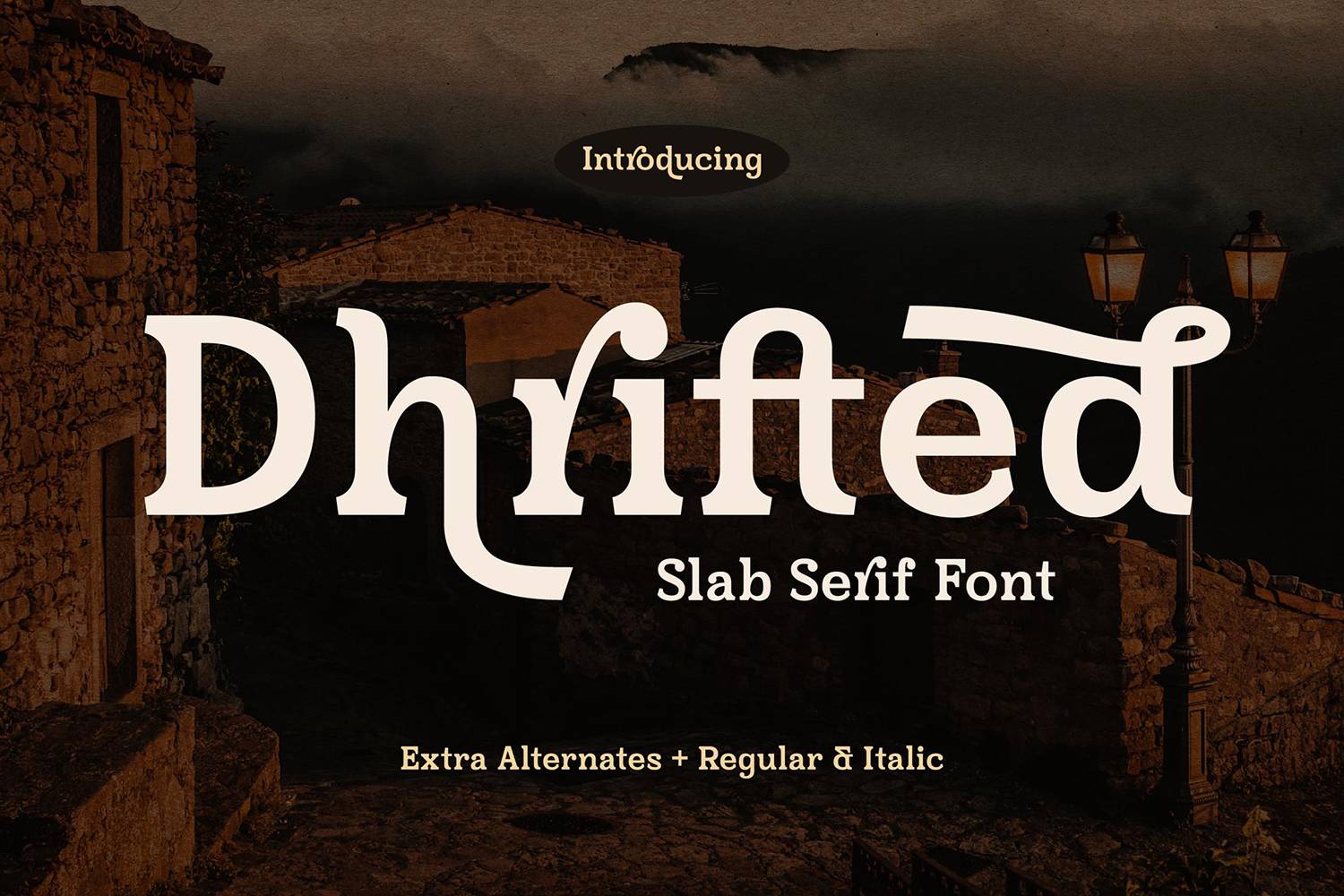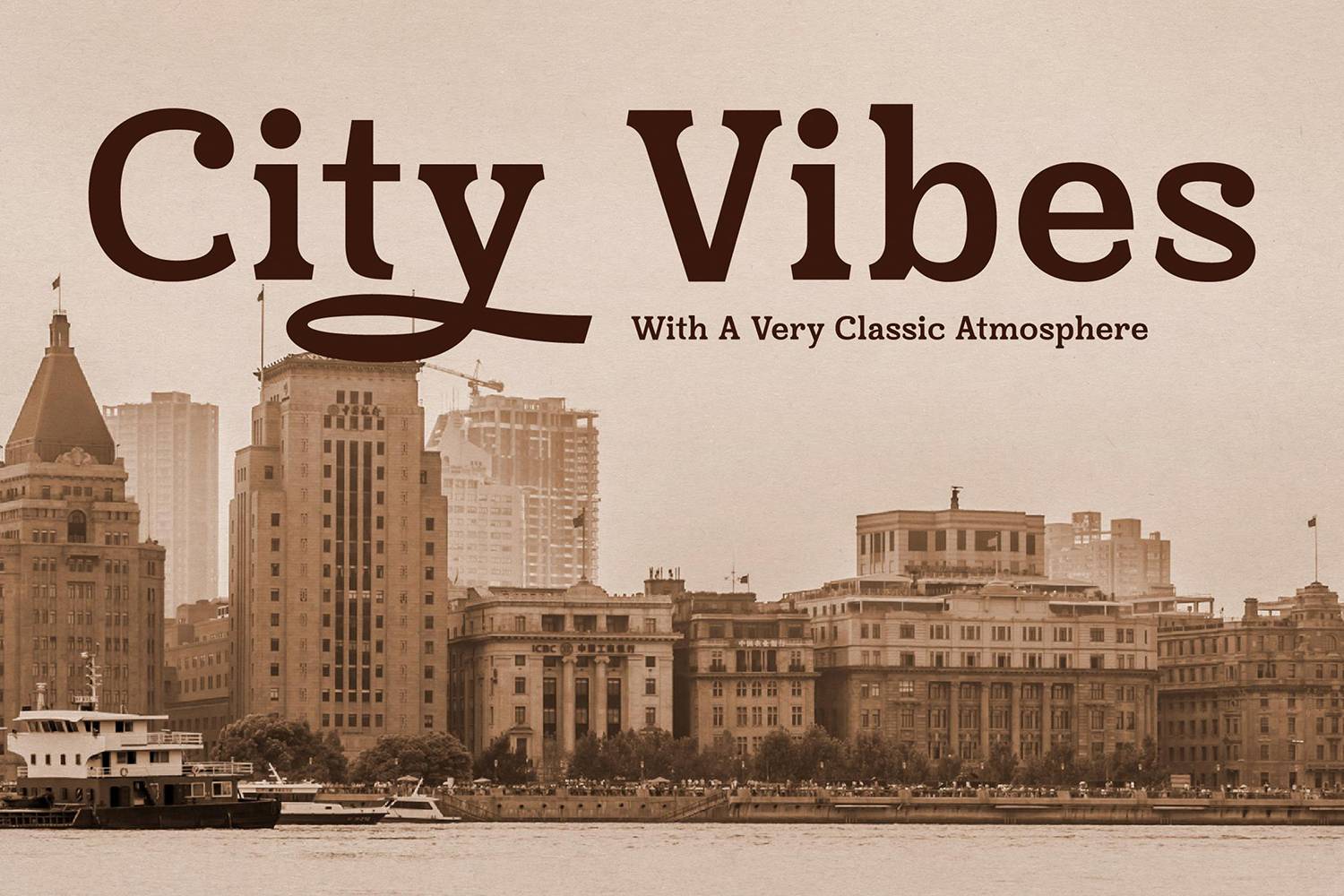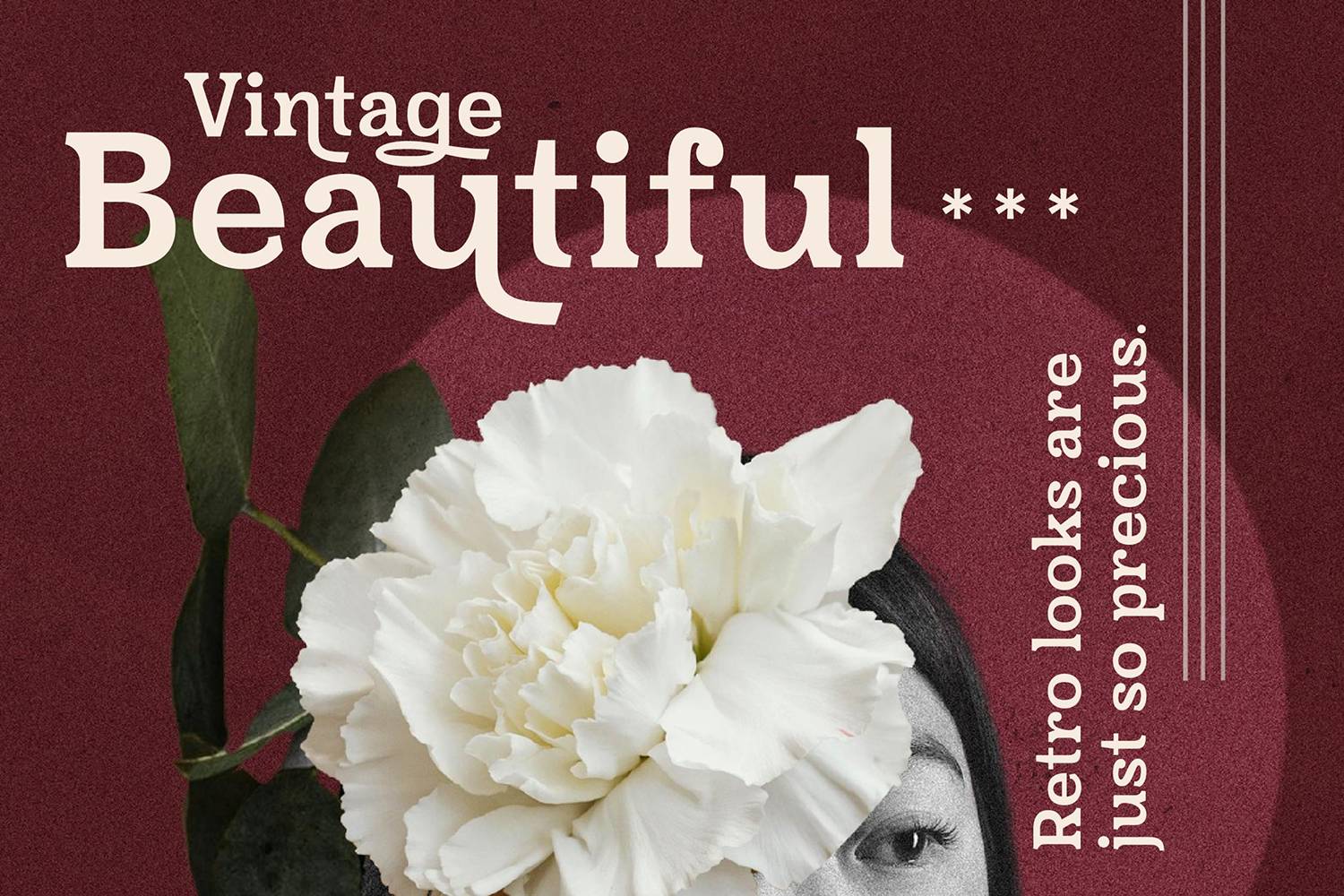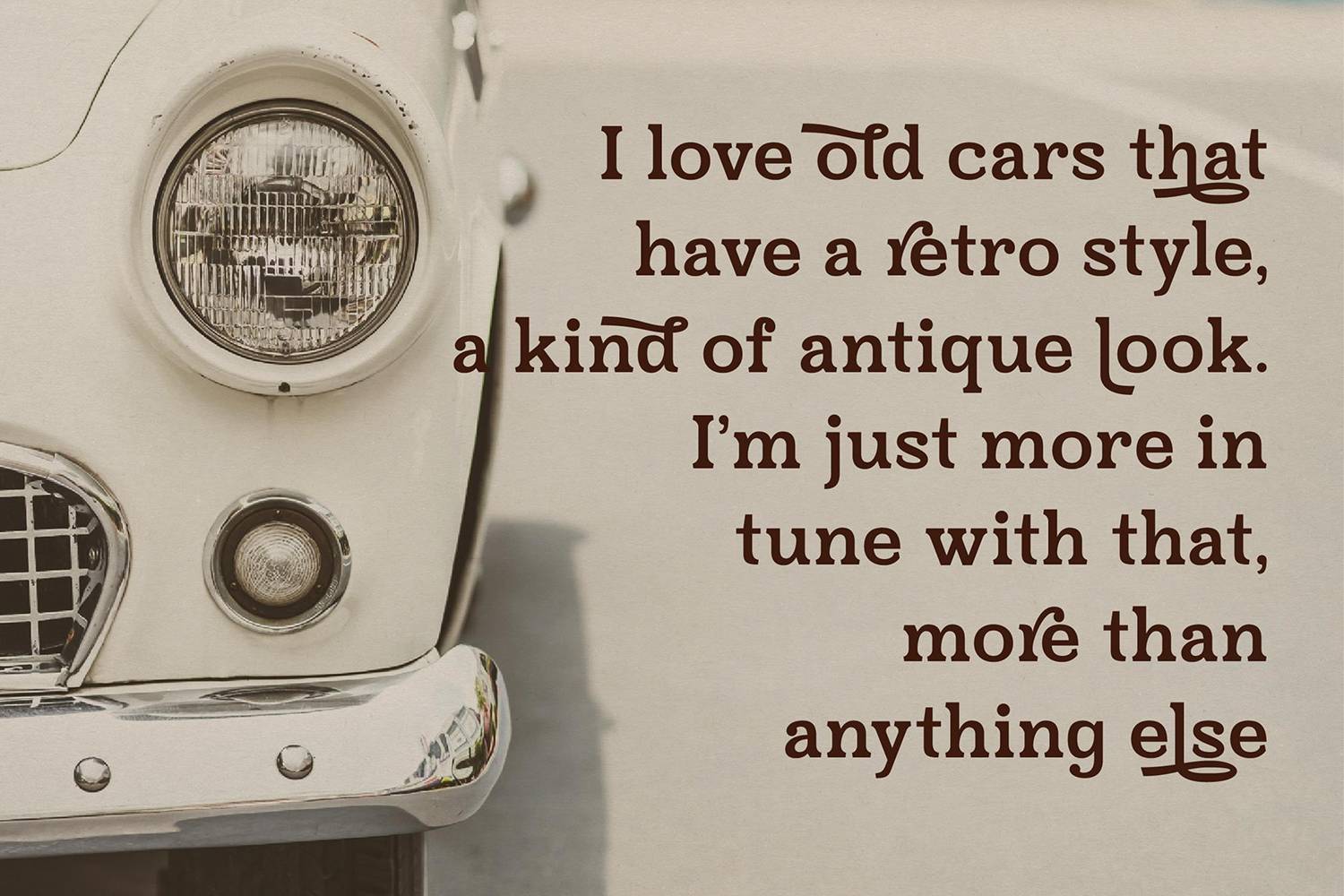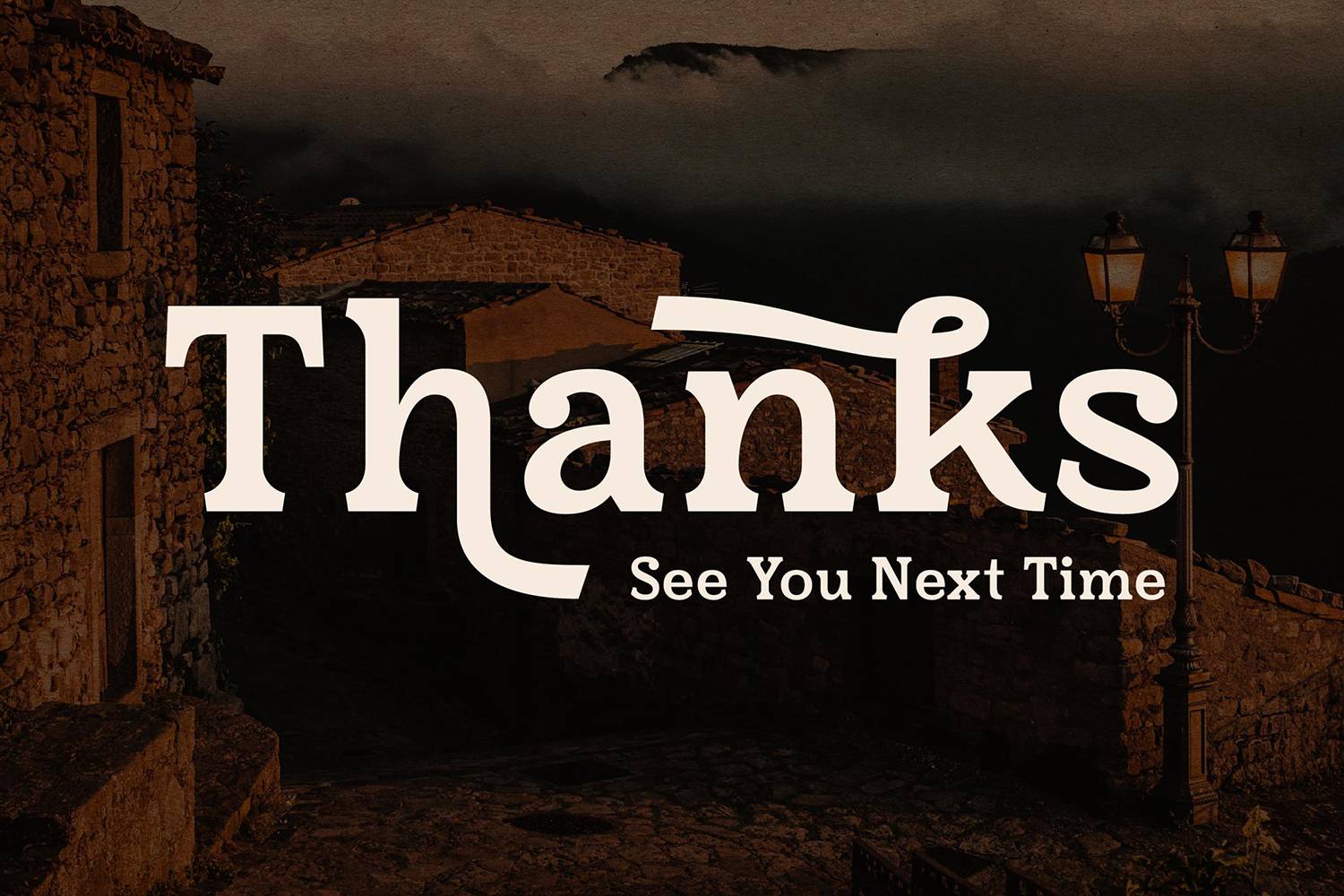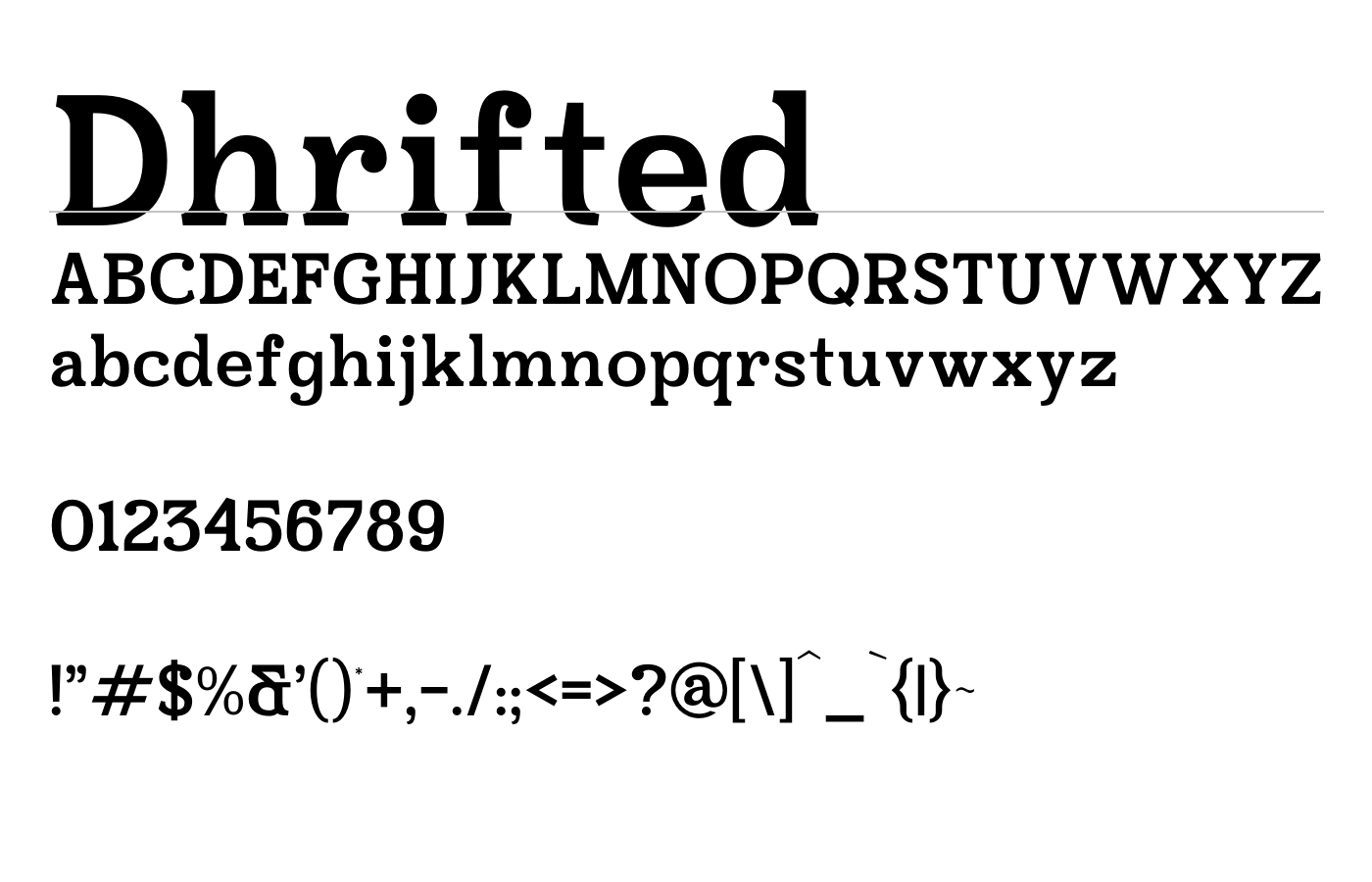
Dhrifted is a robust slab serif font with a strong presence, featuring thick, block-like serifs and medium contrast between strokes. It offers a classic yet bold style with high readability, making it ideal for headlines, branding, and editorial designs where a confident and timeless look is desired. This font combines a slightly condensed width with well-defined letterforms, giving it a versatile and authoritative personality suitable for impactful visual communication.
Dhrifted Font
About Dhrifted Font